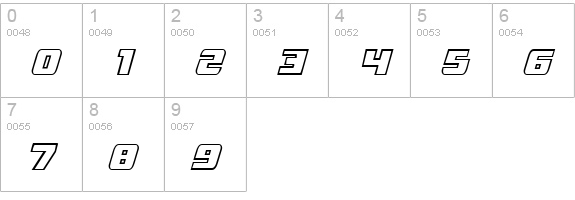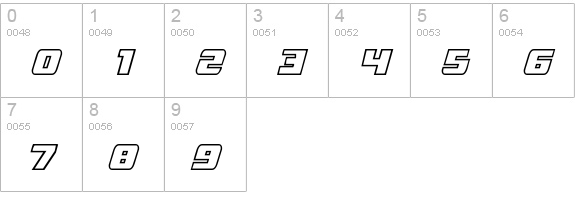
Justice Font Details
Introducing Justice font, a sleek and modern typeface designed to bring a sense of authority and sophistication to your projects. With its clean lines and sharp angles, Justice exudes a sense of strength and professionalism. This versatile font is perfect for a wide range of design applications, from branding and logos to editorial and web design. What sets Justice font apart is not only its striking appearance, but also its accessibility. It is available for free download at FontsMarket.com, making it easy for designers of all levels to access and use in their work. With Justice font, you can make a bold statement while maintaining a sense of elegance and style. Download it today and elevate your designs to the next level.